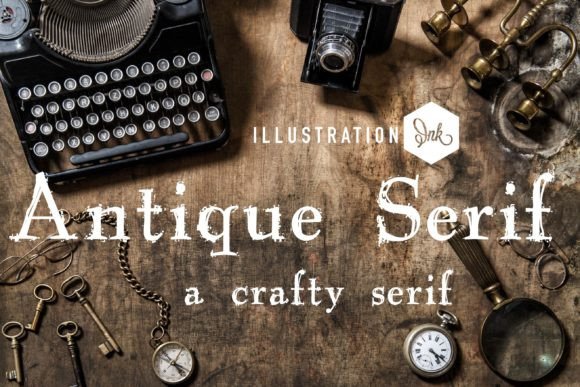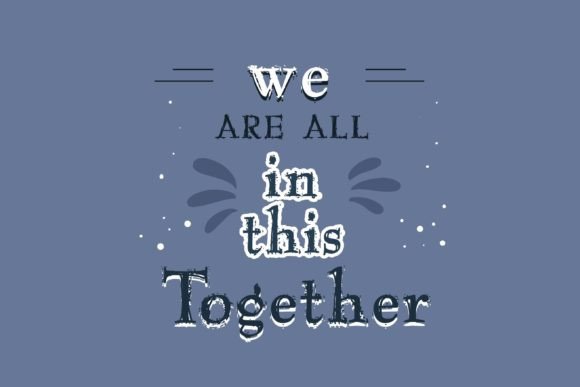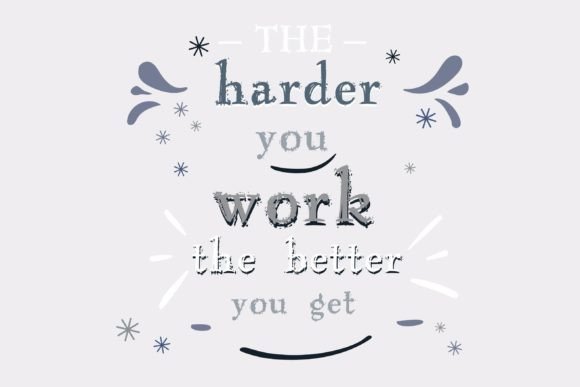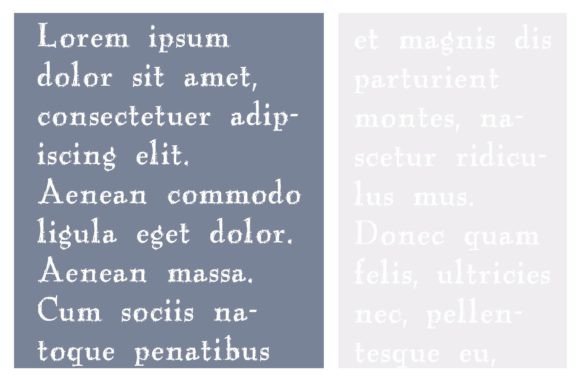
About the Antique Font
We are excited to introduce Antique Font, a must-have typeface for any serious designer. This hand-crafted serif has lots of extra grunge and details. This serif font will add a touch of luxury and style to your branding and logo design projects.
Its high contrast and intricate details make it ideal for headlines, short text blocks in branding materials, and even select packaging applications where a touch of vintage elegance is desired. However, its ornate nature renders it unsuitable for body text or UI elements; the fine details would be illegible at smaller sizes and create visual clutter.
Antique Font projects a sophisticated, slightly rebellious personality. It works best for brands aiming for a luxurious yet edgy feel, such as high-end fashion, artisanal goods, or boutique hotels. Avoid pairing it with other highly decorative fonts. Instead, consider a clean sans-serif like Montserrat for body copy or a geometric sans-serif like Futura for a modern contrast. A simple script font could also complement it for a touch of added flair, depending on the overall design goal.
Antique Font Usage Examples
Antique Font Example